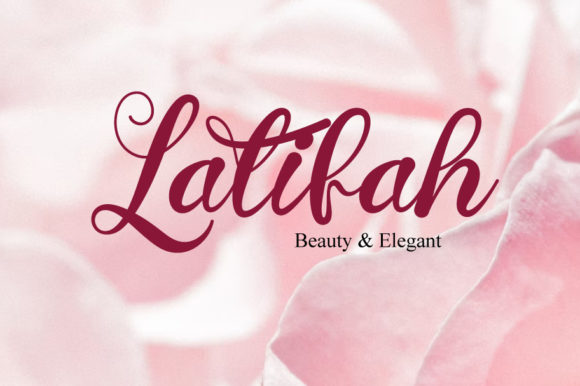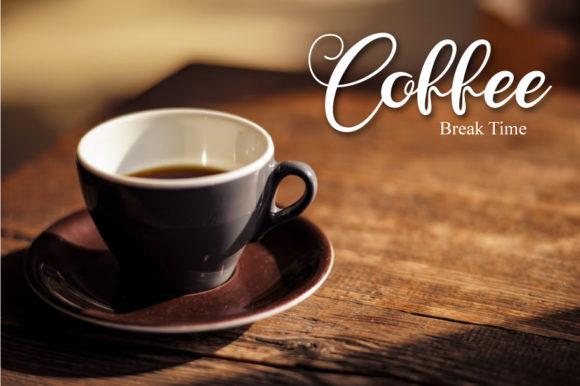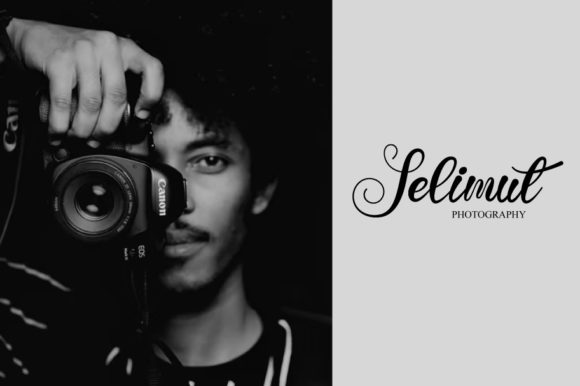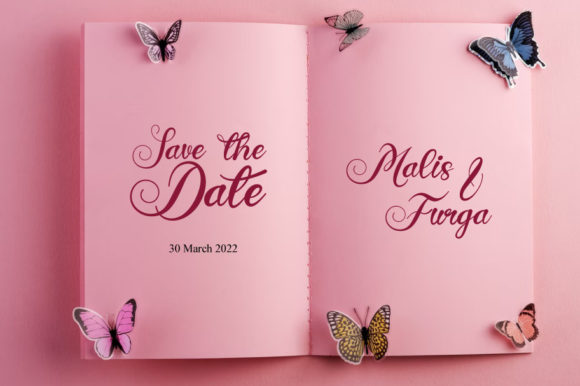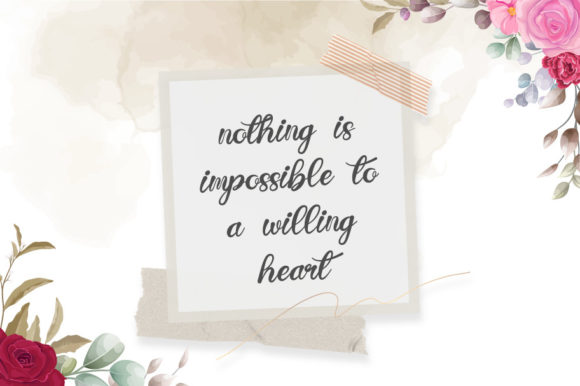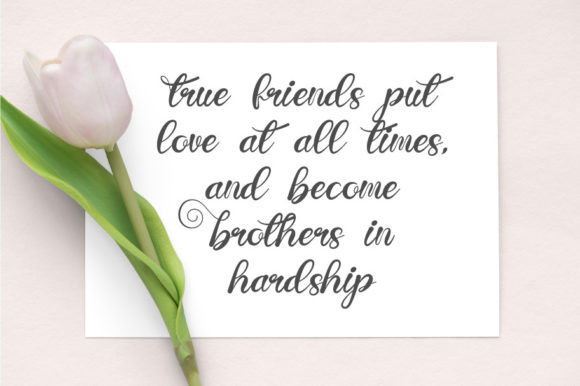
The Perfect Script for Your Next Design Project
Have you ever stared at a blank canvas, pencil in hand, trying to bring your creative vision to life? The blank page can be intimidating, but sometimes all it takes is the right tool to spark inspiration. For designers and creatives, finding that perfect script can be the game-changer they need to elevate their work.
Enter Bagikat Font, a timeless handwritten font that adds a touch of elegance and sophistication to any design. Whether you’re crafting a logo, branding, or a quote, Bagikat Font is the perfect choice to make your design come alive. Its unique and beautiful letters will captivate your audience and leave a lasting impression. As a designer, you’ll appreciate the value of Bagikat Font for its versatility and ability to add a personal touch to your work.
Bagikat Font Key Features
- Font Family: Bagikat is a unique, custom-designed font family.
- Character Set: The font includes a comprehensive character set, supporting multiple languages and scripts.
- Unique Characteristics: Bagikat features a distinctive, hand-drawn aesthetic with intricate details and subtle flourishes, making it ideal for creative and artistic projects.
Designer Review: Bagikat Font
When I first laid eyes on the Bagikat font, I was immediately drawn to its unique, handwritten feel. The font’s ✨ eclectic and whimsical vibe has a way of capturing attention and adding a touch of personality to any design project.
The Bagikat font works particularly well for:
- Titles and headings: The font’s playful nature makes it perfect for grabbing readers’ attention and setting the tone for a design project.
- Quotations and asides: The font’s informal feel makes it a great choice for adding a personal touch to quotes, pull quotes, or asides in a design.
- Designs with a vintage or retro feel: The font’s handwritten quality evokes a sense of nostalgia and can be a great choice for designs that aim to evoke a bygone era.
However, the Bagikat font is not without its limitations:
- ⚠️ Limited legibility: The font’s handwritten quality can sometimes make it difficult to read, especially at smaller sizes or in low-light conditions.
- ⚠️ Limited font weight options: The font only comes in a few weight options, which can limit its versatility in certain design projects.
Overall, I think the Bagikat font is a great choice for designers looking to add a touch of personality to their projects. While it may not be suitable for every design project, its unique feel and eclectic vibe make it a great option for designers looking to stand out from the crowd.
Use Bagikat Font for creating unique and eye-catching headings and titles.
Pair it with bold or italic styles to add emphasis to your text.
Experiment with different font sizes to create a visually appealing hierarchy of information.
Use Bagikat Font for:
Creating branding materials, such as logos and business cards.
Designing infographics and presentations.
Writing creative content, such as blog posts and social media posts.
Alternatives to Bagikat Font
Great Vibes Font is a modern, elegant script font perfect for designing elegant invitations, wedding cards, or any occasion that requires a touch of sophistication. It’s ideal for use in headings, titles, or short paragraphs where a flowing, handwritten feel is desired.
Compared to Bagikat Font, Great Vibes Font has a more refined and polished appearance, making it suitable for formal events or high-end branding. However, Bagikat Font has a more rustic, vintage feel that may be preferred for more casual or retro-themed designs.
Pacifico Font is a beautiful, cursive font that exudes a relaxed, beachy vibe. It’s perfect for designing beach-themed posters, travel brochures, or any content that requires a laid-back, tropical feel. Pacifico Font is also great for use in headings, titles, or short paragraphs where a flowing, handwritten feel is desired.